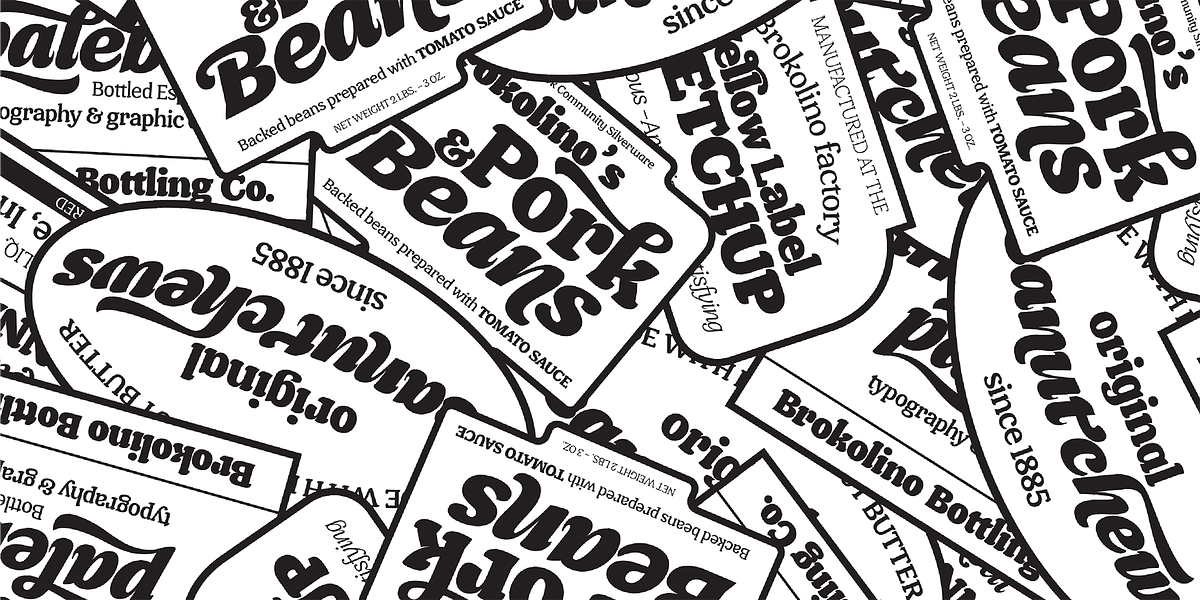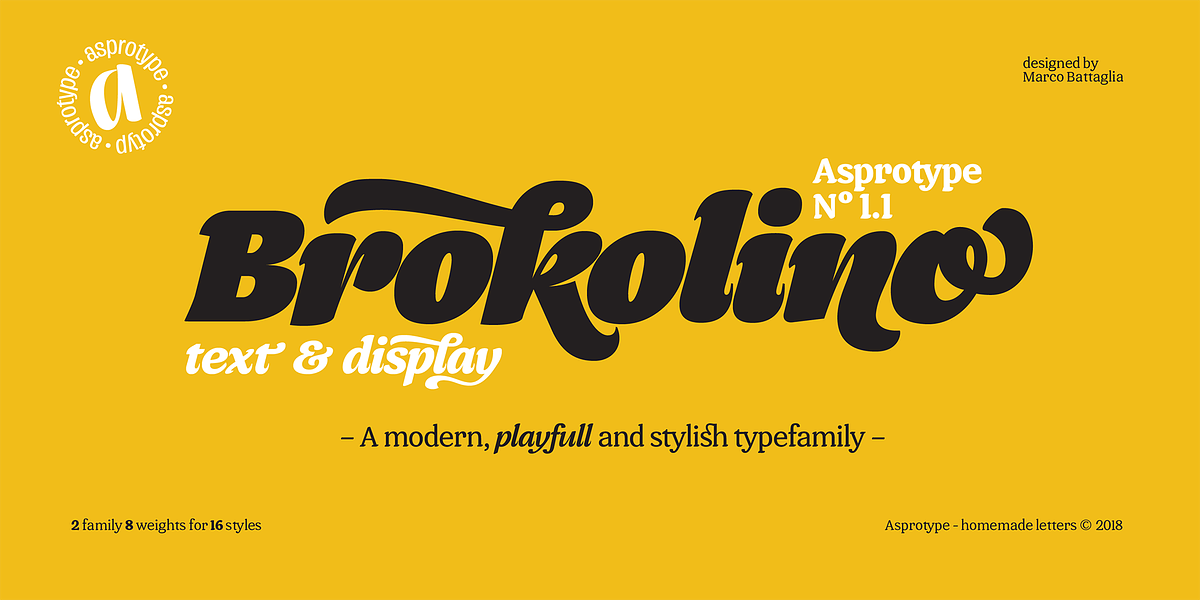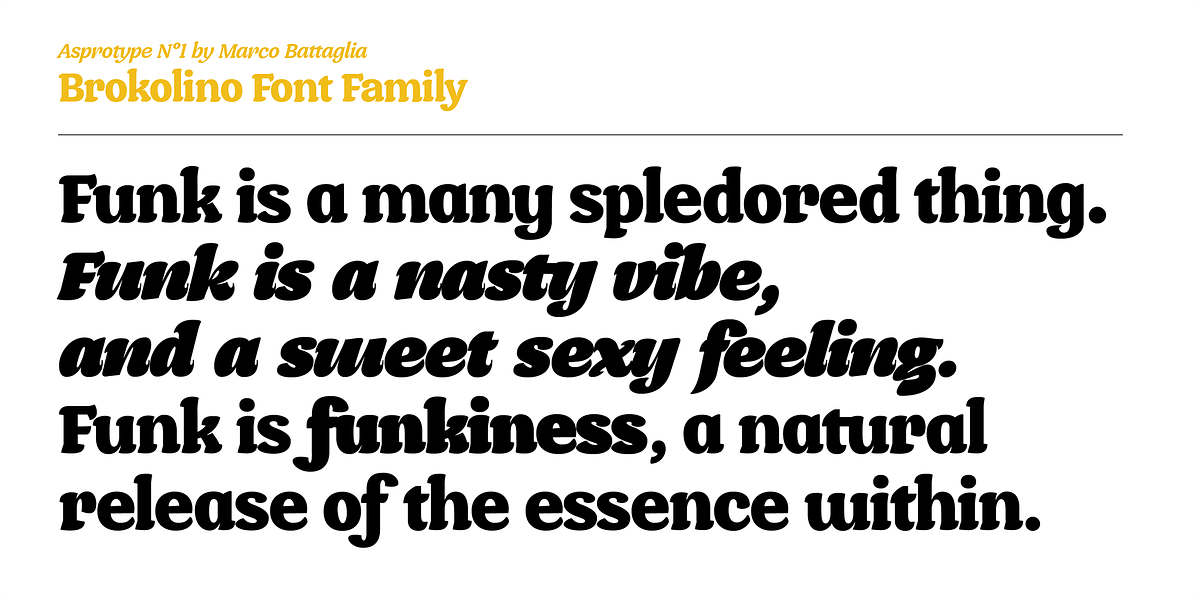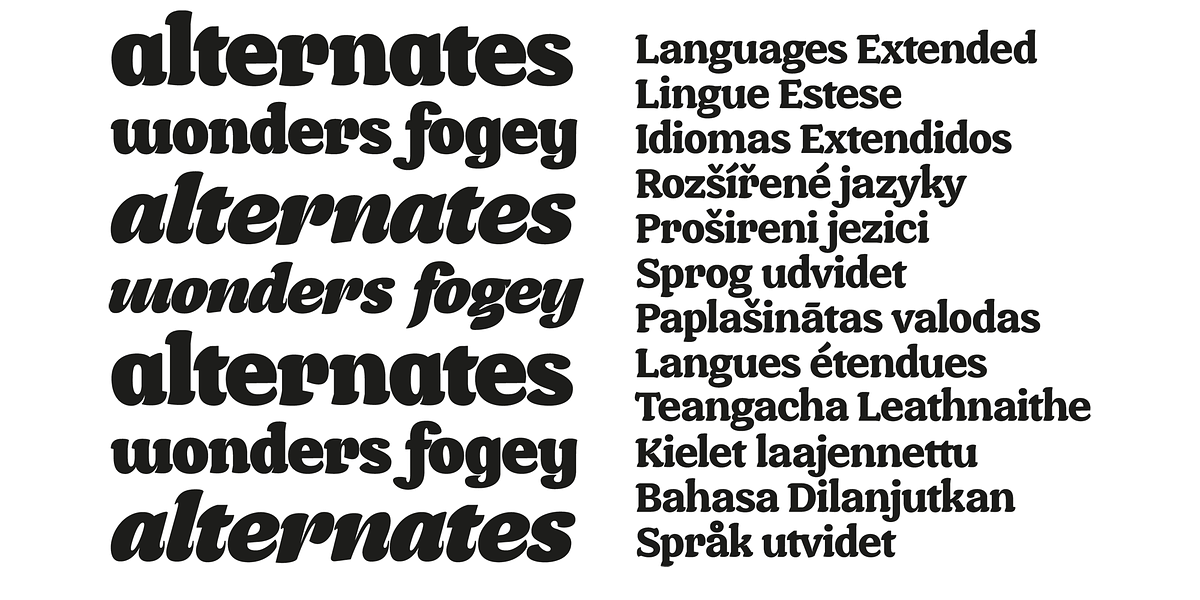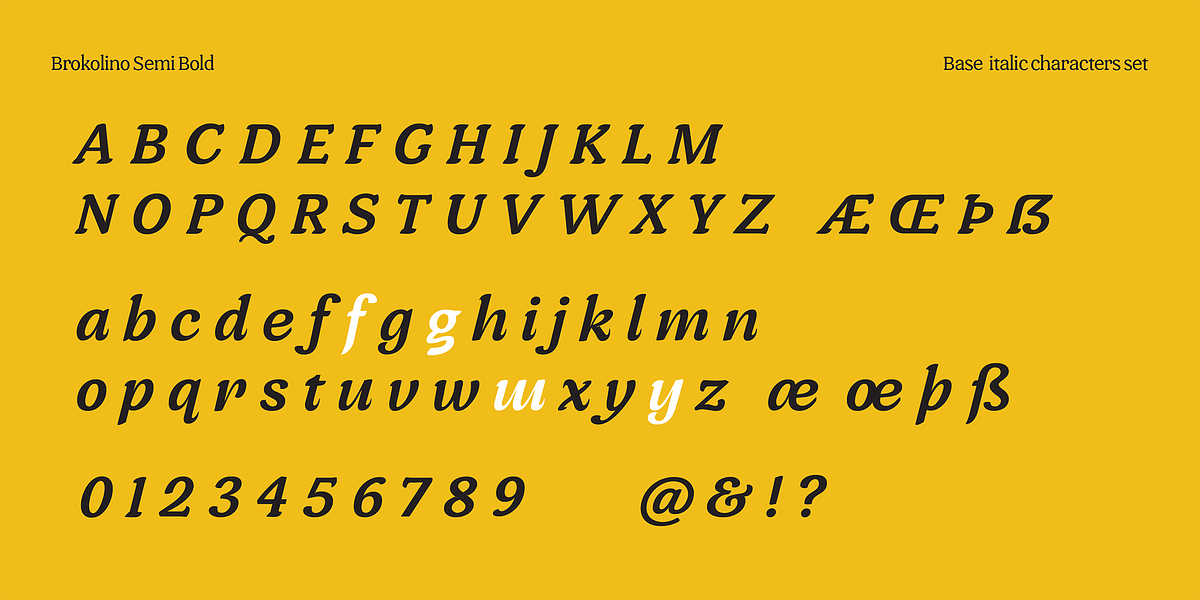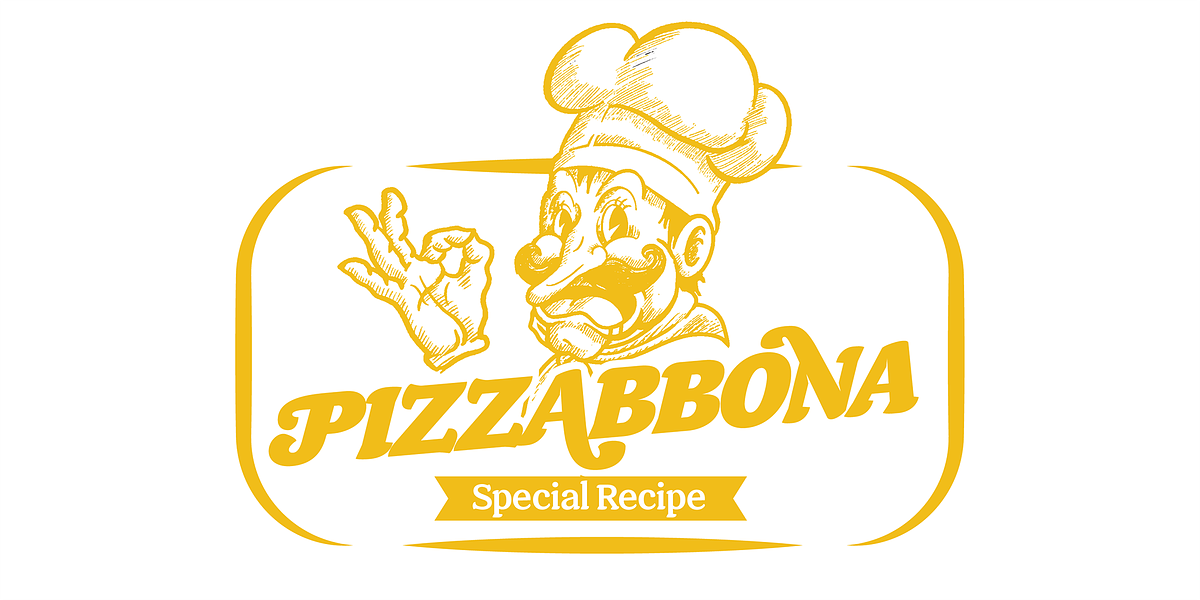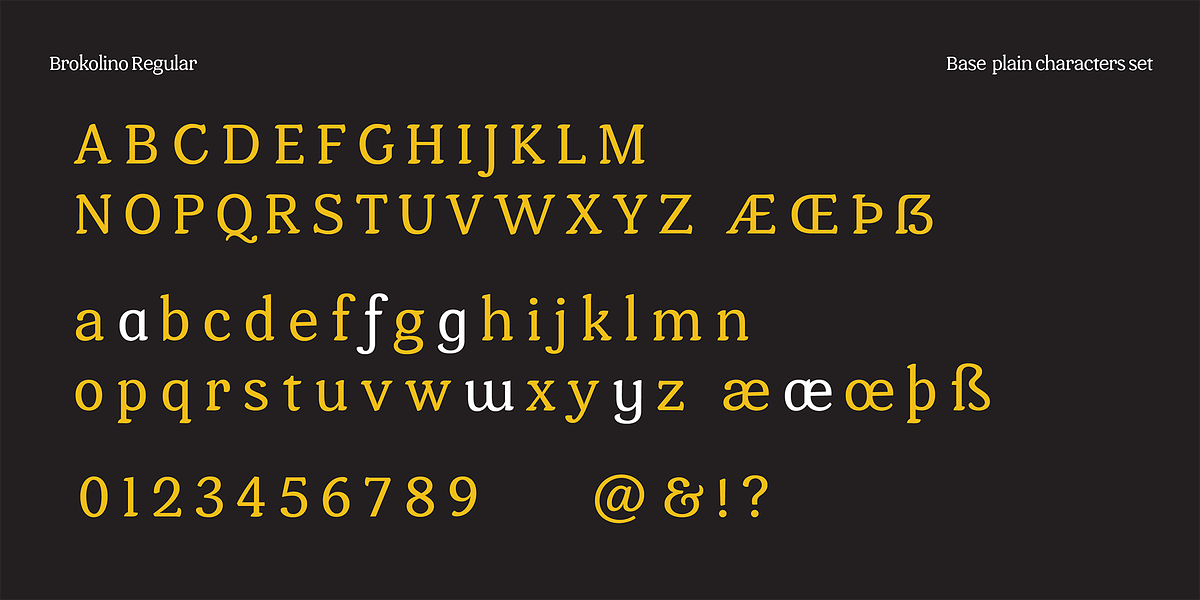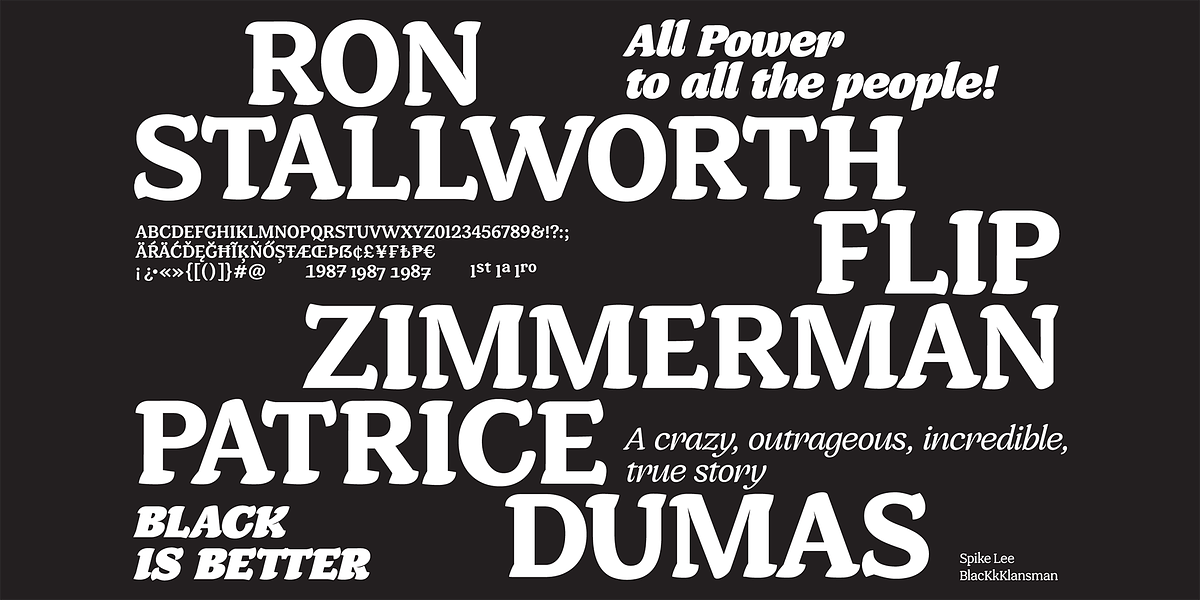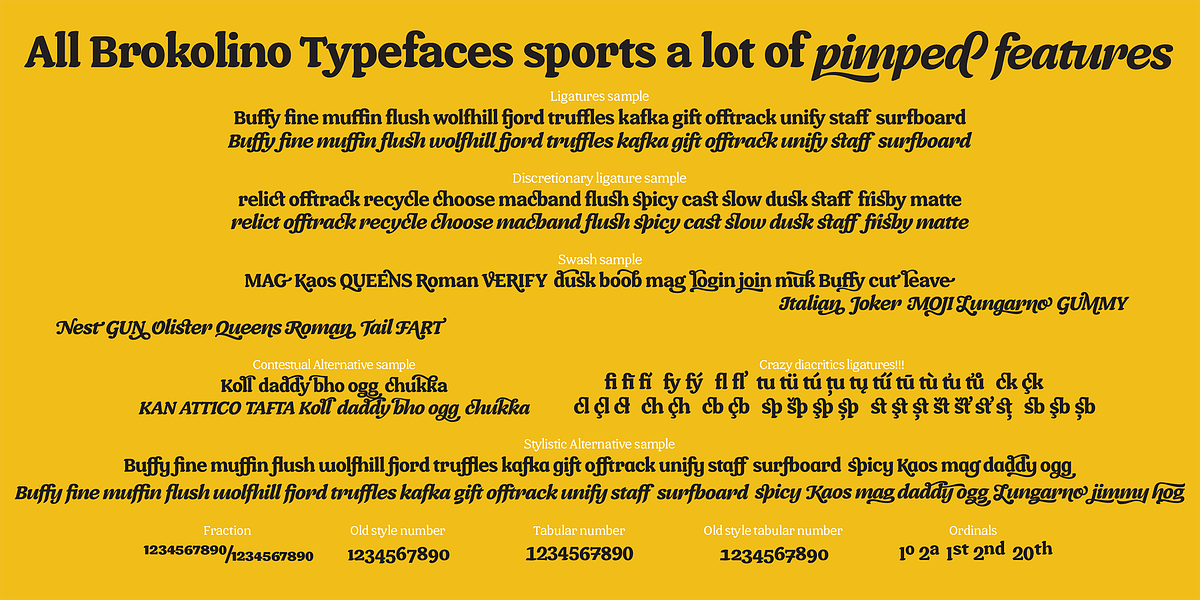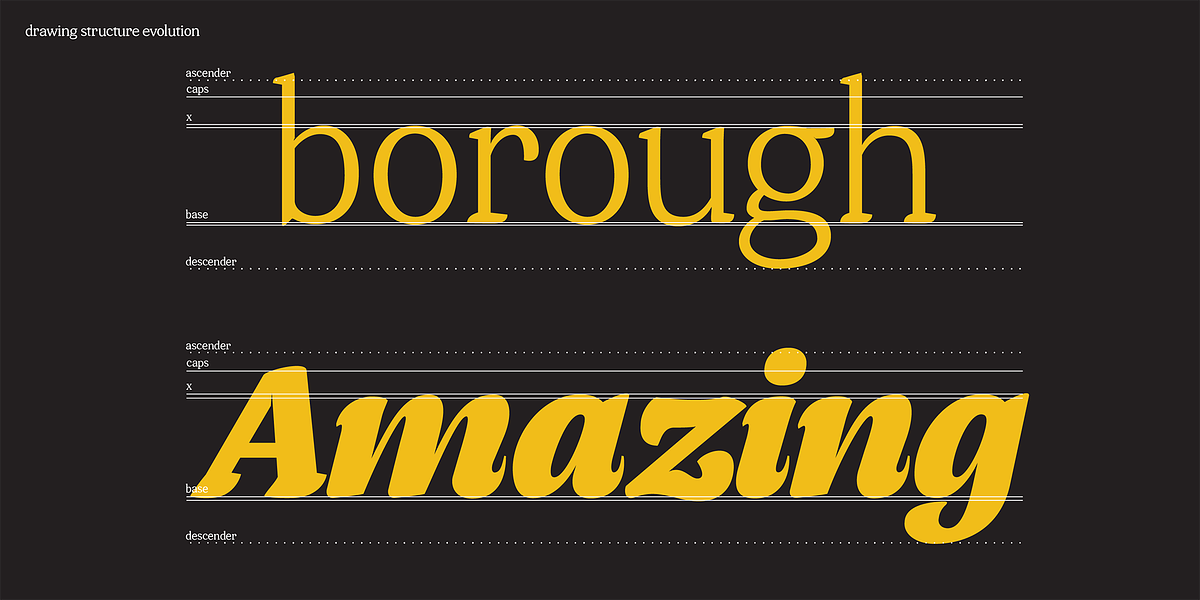
Brokolino Text
Brokolino is a humanist slab serif typeface designed by Marco Battaglia. It draws inspiration from both humanist broad nib calligraphy and popular type styles of the 1970s. The font family offers a range of weights suitable for both text and display use. Text weights are characterized by low contrast and a light texture, making them well-suited for extended passages in publications, magazines, and books. The italic variant features variable angles (from 11° to 14°) and a calligraphic feel. Brokolino includes extended Latin support and OpenType features such as ligatures, alternates, and swashes.